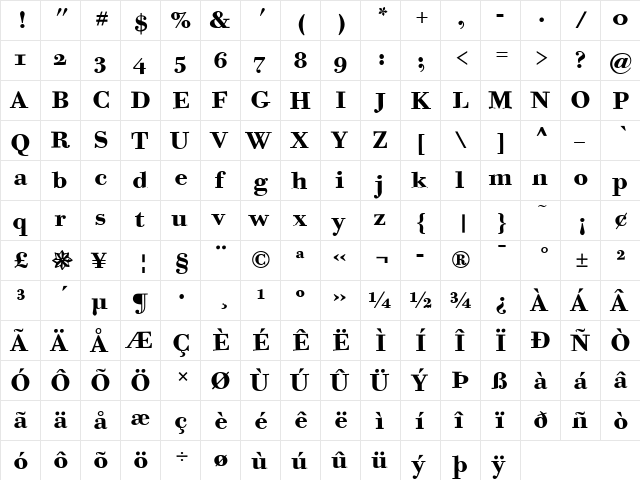
Bodoni Six ITC Bold
Design Context for Bodoni Six ITC Typeface
Bodoni Six ITC takes a measured approach to typography — its balanced proportions and neutral character make it a reliable workhorse for both digital and print work. The heavy weight commands attention and anchors typographic hierarchies.